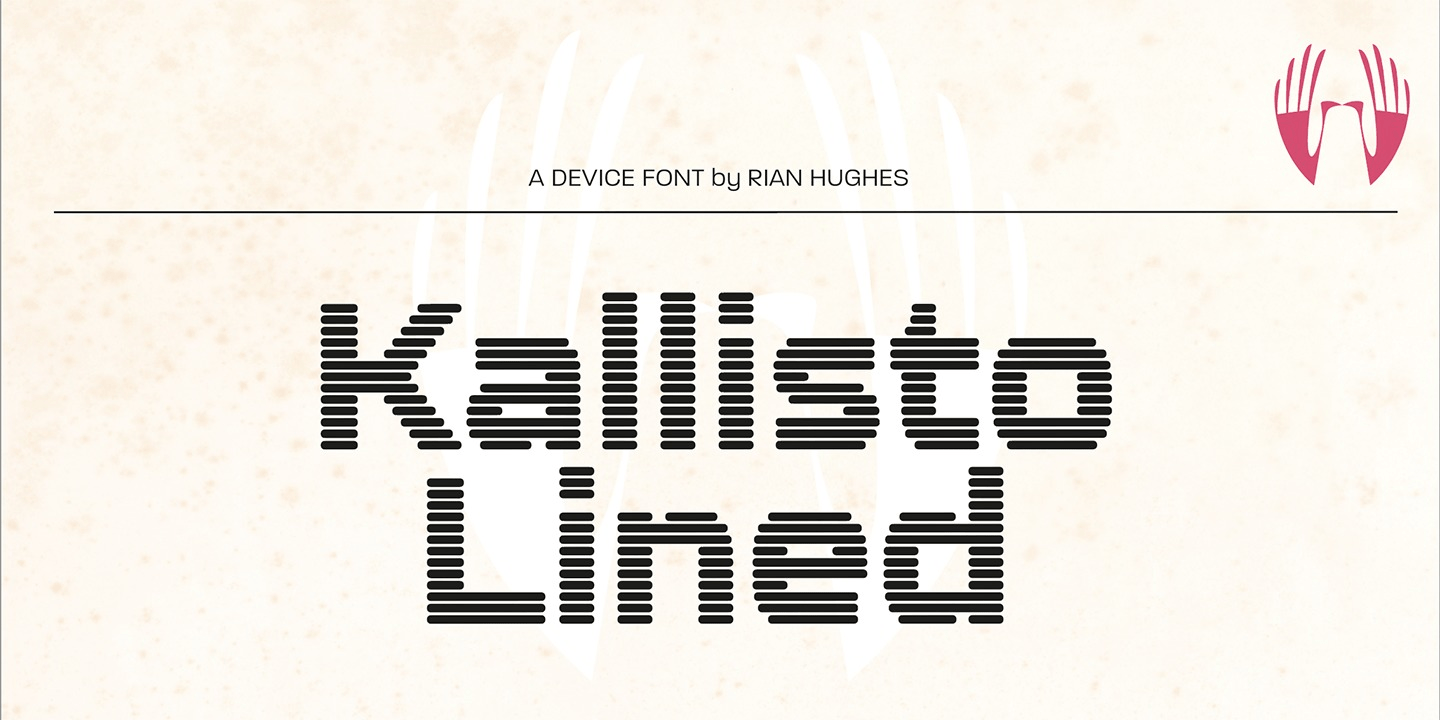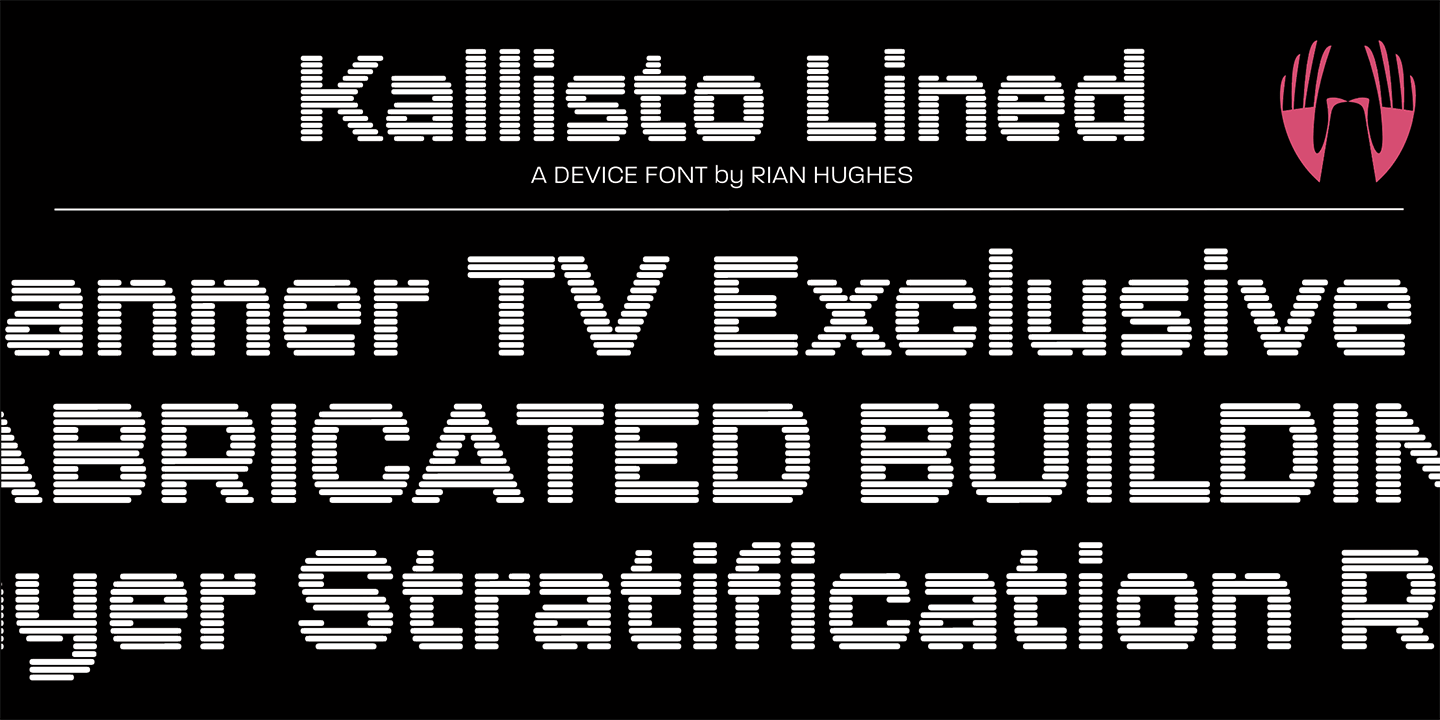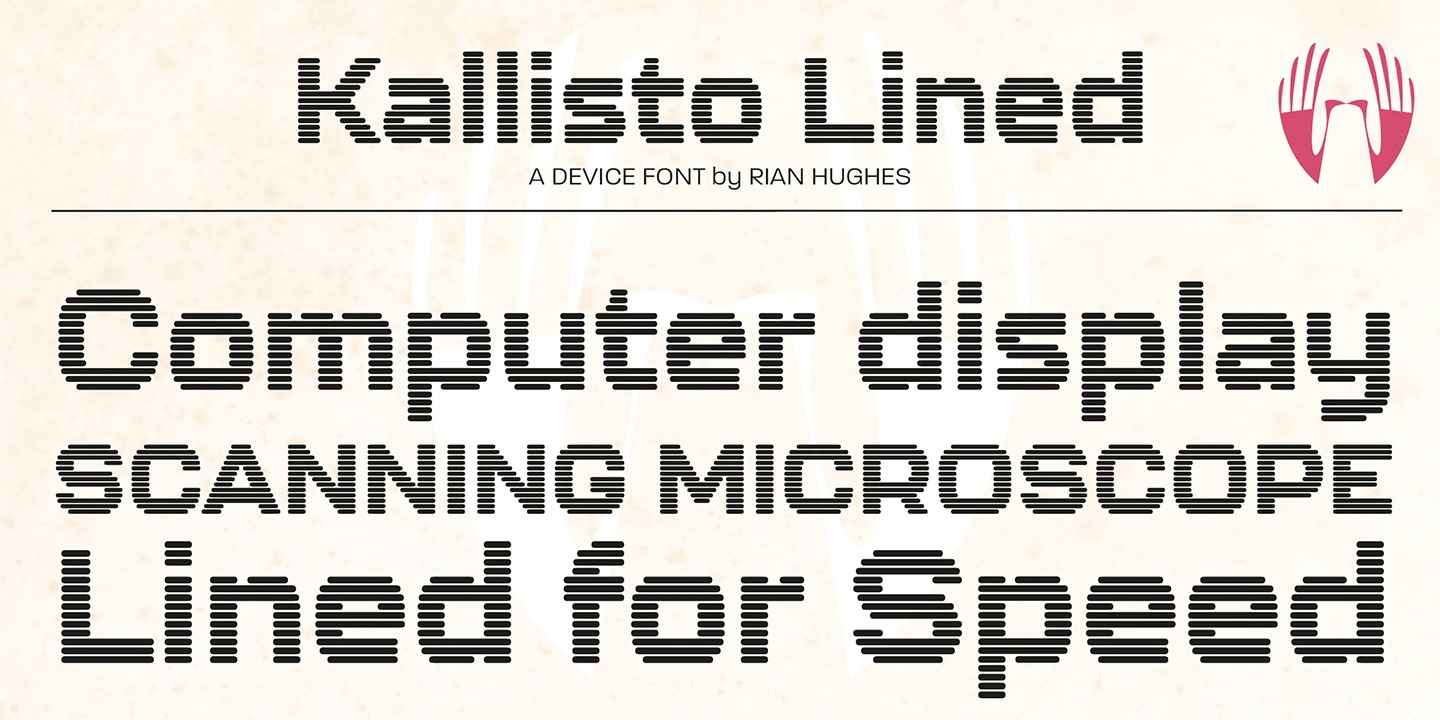
Kallisto Lined
About Kallisto Lined
A lined variant of Kallisto, suggestive of scan lines, speed and display screens. Kallisto weds a rational, machine-made aesthetic with a certain warmth that derives from more familiar letter shapes found on diestamped or embossed boilerplate signs.